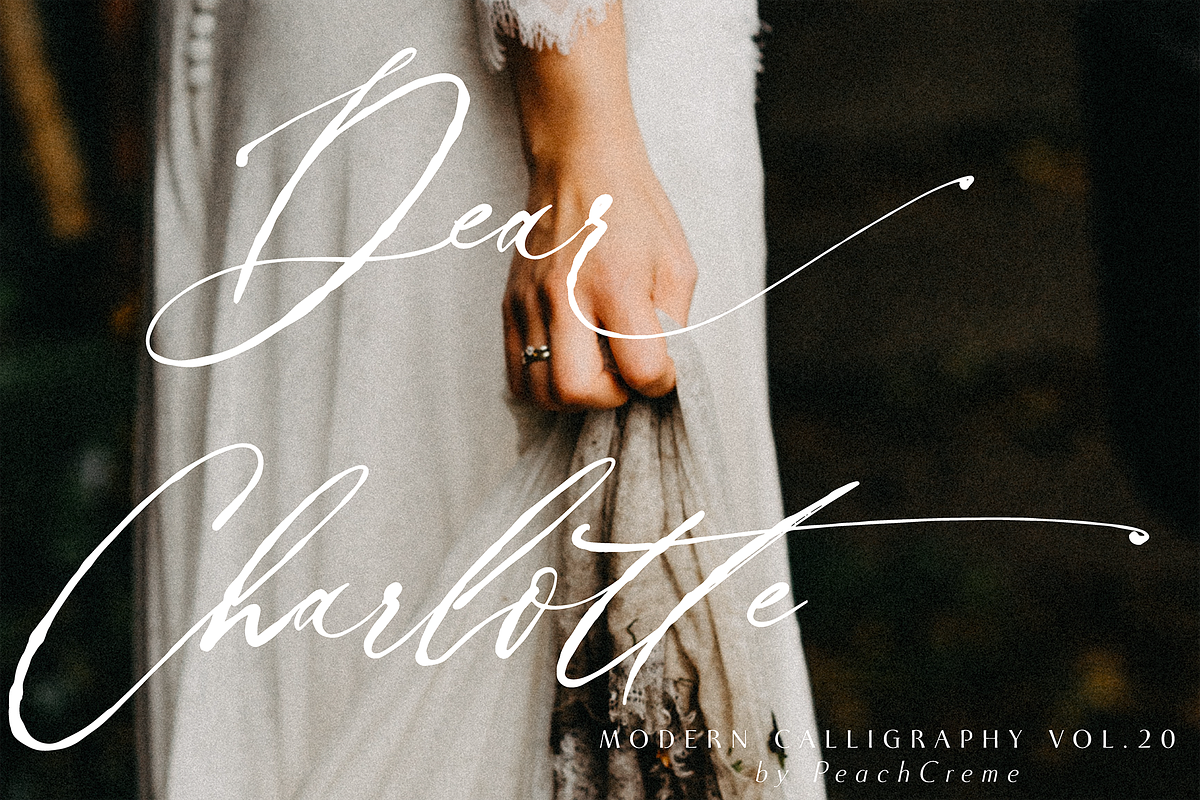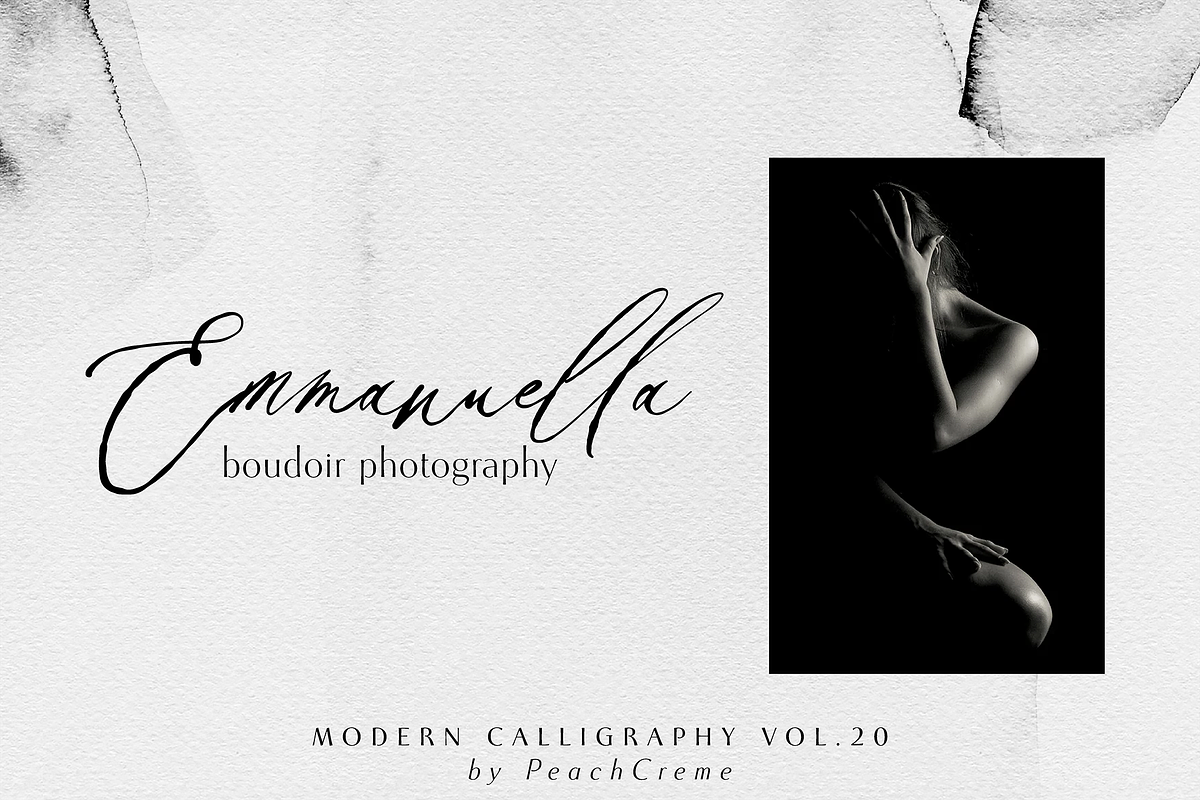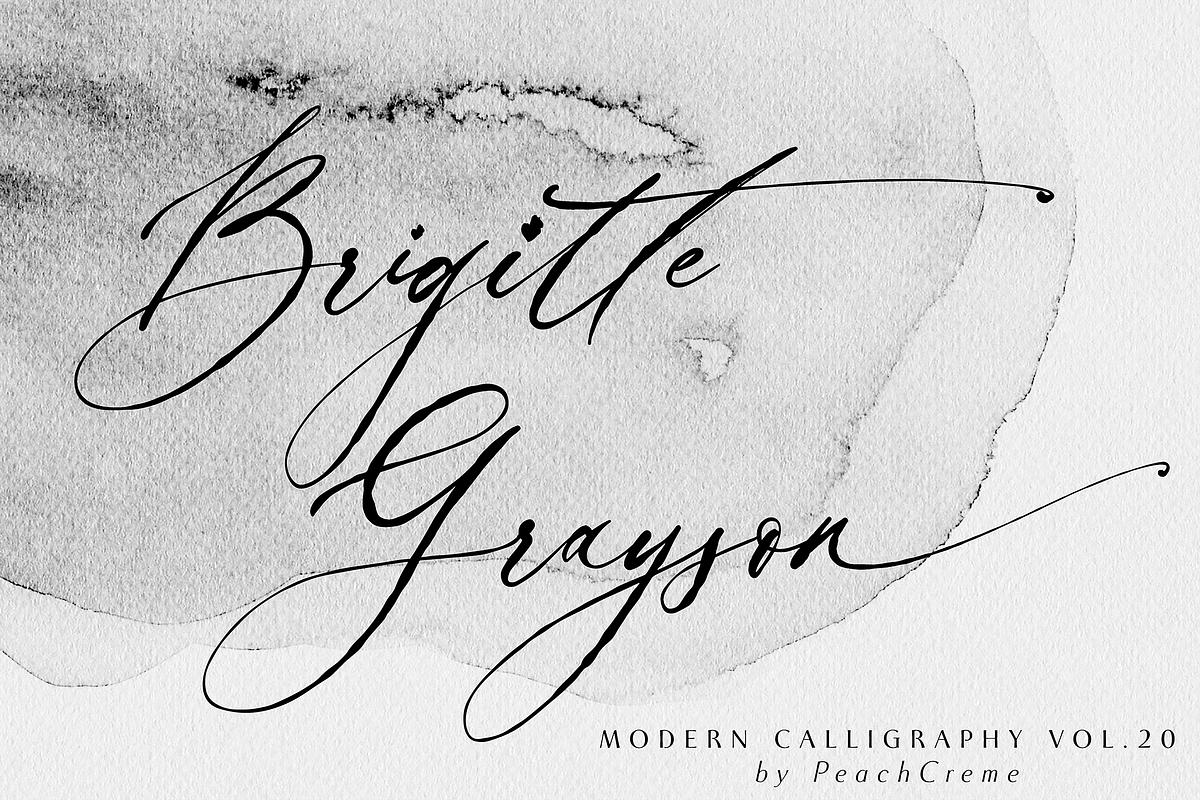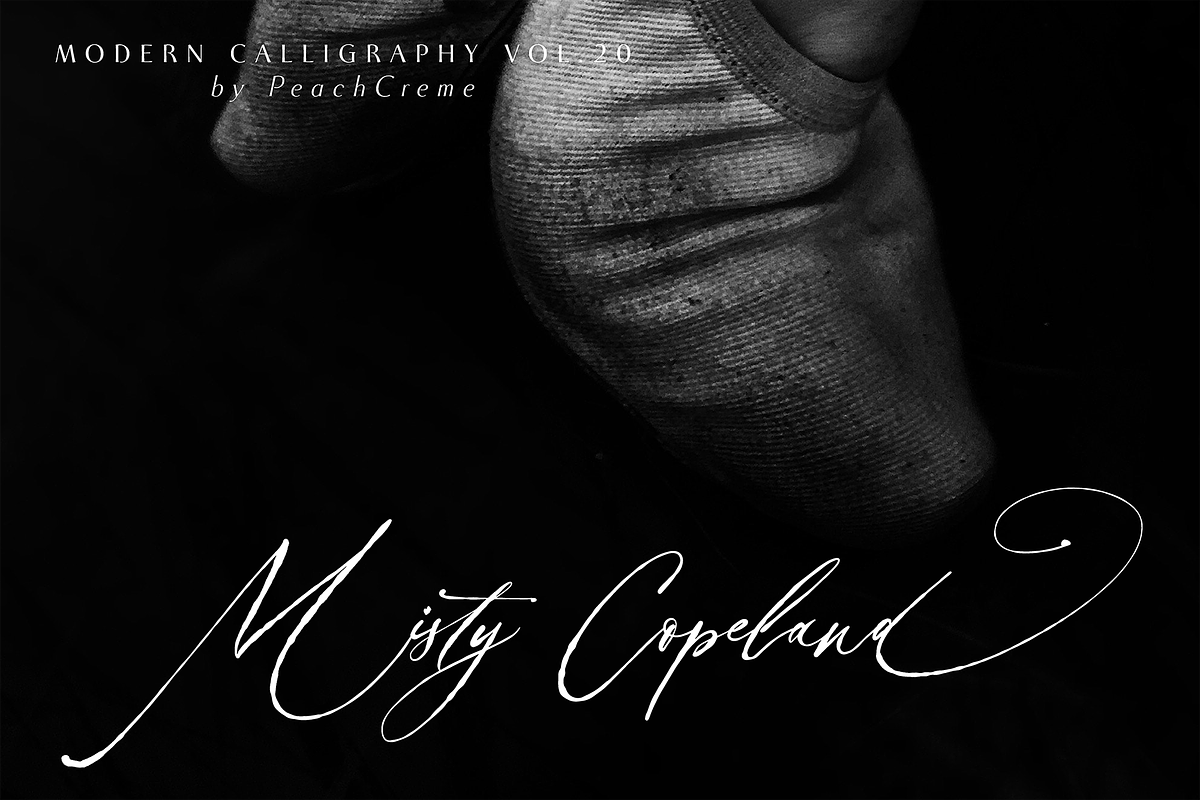
Balzak Font
Balzak is an organic calligraphy font. The font includes uppercase and lowercase letters, numerals, a large range of punctuation and ligatures. All lowercase letters include ending swashes.
Perfectly suitable for numerous use such as quotations, banners, logos, product packaging, titles, headers, menu lists, and invitation cards.
Balzak Organic Calligraphy Font